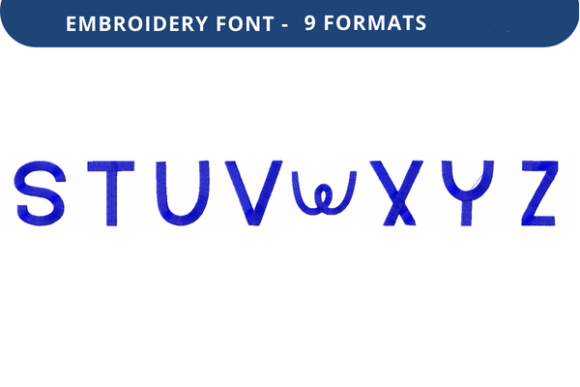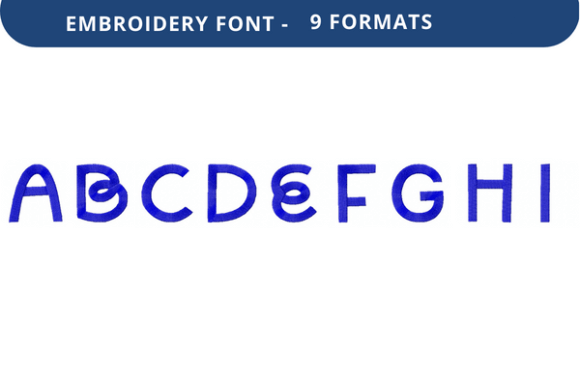
Begonia Embroidery Font: A Versatile Tool for Creative Expression
If you're someone who finds joy in the art of embroidery, you've likely encountered the challenge of finding a font that not only looks beautiful but also works seamlessly with your embroidery machine. Enter Begonia Embroidery Font, a design that blends elegance with practicality, offering a fresh way to bring your creative visions to life.
What Is Begonia Embroidery Font?
Begonia Embroidery Font is a meticulously crafted set of lettering designed specifically for use in machine embroidery. It features graceful, intricate designs that are perfect for adding a touch of sophistication to any project. Unlike standard fonts, this one is optimized for embroidery machines, ensuring that every detail translates smoothly into stitch patterns.
Where and When to Use Begonia Embroidery Font
The beauty of Begonia Embroidery Font lies in its versatility. It's ideal for both personal and professional projects. For instance, if you're a hobbyist looking to add unique touches to your home decor, this font can transform plain fabric into elegant pieces. You might use it to create custom pillow covers, table runners, or even personalized gifts for friends and family.
For entrepreneurs and small business owners, Begonia Embroidery Font can be a powerful tool. Imagine using it to craft custom labels for your products or to personalize promotional items. This font allows you to create eye-catching designs that stand out in a competitive market. It’s also great for creating branding materials such as logos or signage for your business.
Why Begonia Embroidery Font Stands Out
One of the key reasons Begonia Embroidery Font is so popular is its attention to detail. Each letter is carefully digitized to ensure that the final result is both visually appealing and technically sound. This means that even if you're new to embroidery, you can still achieve professional-looking results with minimal effort.
Real-World Applications of Begonia Embroidery Font
Let’s take a closer look at how Begonia Embroidery Font can be used in various scenarios:
- Personal Projects: Create custom towels, aprons, or clothing items for yourself or as gifts. The font adds a unique flair that can make your handmade creations more special.
- Professional Work: Use it to create branded embroidery for your business, such as company logos, team names, or event banners. This helps reinforce your brand identity and creates a cohesive look.
- Education: Teachers and educators can use Begonia Embroidery Font to create visual aids, student projects, or classroom decorations that engage students and enhance learning experiences.
- Marketing: Marketers can incorporate this font into promotional materials, social media posts, or event signage to create a consistent and memorable brand presence.
- Freelancing: Freelancers in the textile or design industry can offer custom embroidery services using Begonia Embroidery Font, expanding their client base and increasing their revenue streams.
Considerations Before Using Begonia Embroidery Font
Second, consider the size and complexity of your project. While Begonia Embroidery Font is highly detailed, larger designs may require more stitches and time to complete. It's important to plan accordingly and allocate sufficient time for each project.
Conclusion
Begonia Embroidery Font is more than just a design—it's a gateway to creativity and expression. Whether you're an experienced embroiderer or just starting out, this font offers the tools you need to elevate your work. With its elegant lettering, compatibility with major embroidery machines, and versatility across a wide range of applications, Begonia Embroidery Font is a must-have for anyone passionate about the art of embroidery.